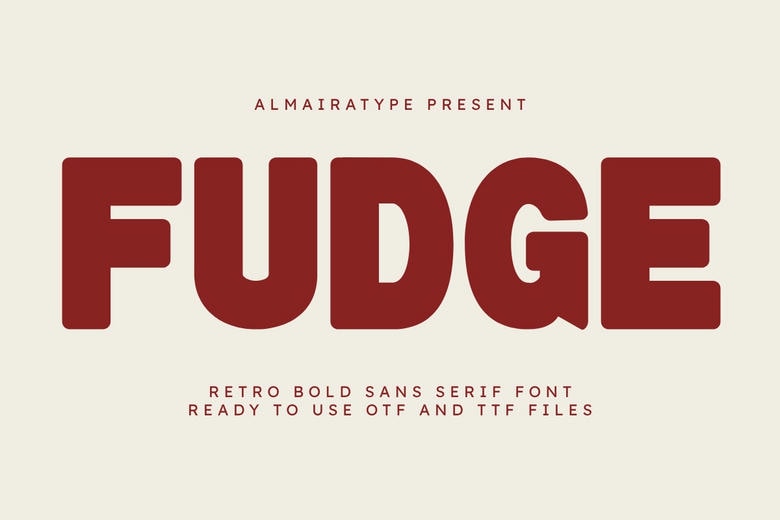
Fudge is a bold retro sans-serif font that adds warmth and a vintage feel to modern creative projects. Its sturdy build and rounded shapes combine classic 70s style with current design trends.
Whether you are creating a bold brand identity, designing trendy streetwear t-shirts, customizing unique packaging, or making social media posters, Fudge gives you clear readability and a professional look.
Fudge Sans Serif Font